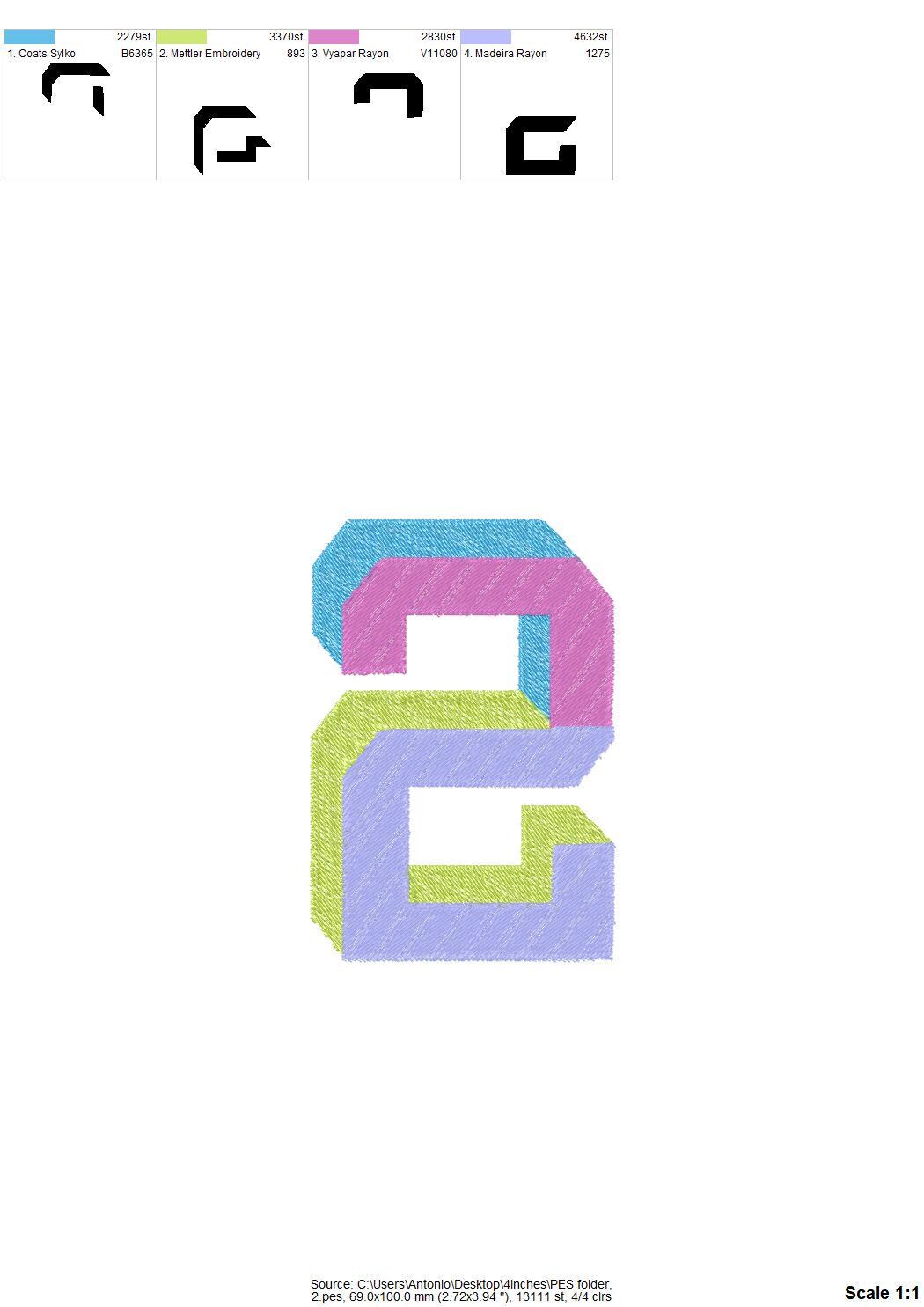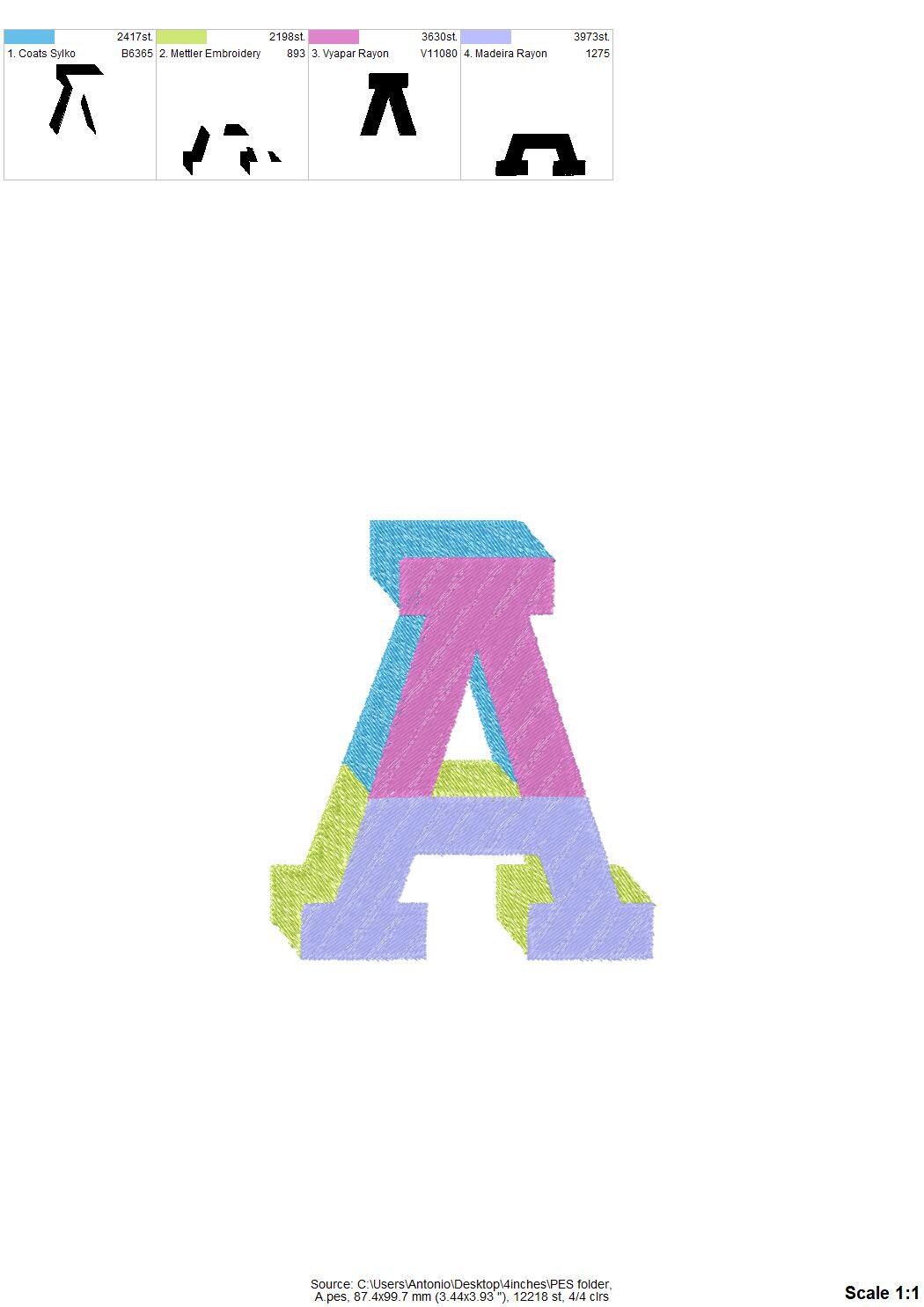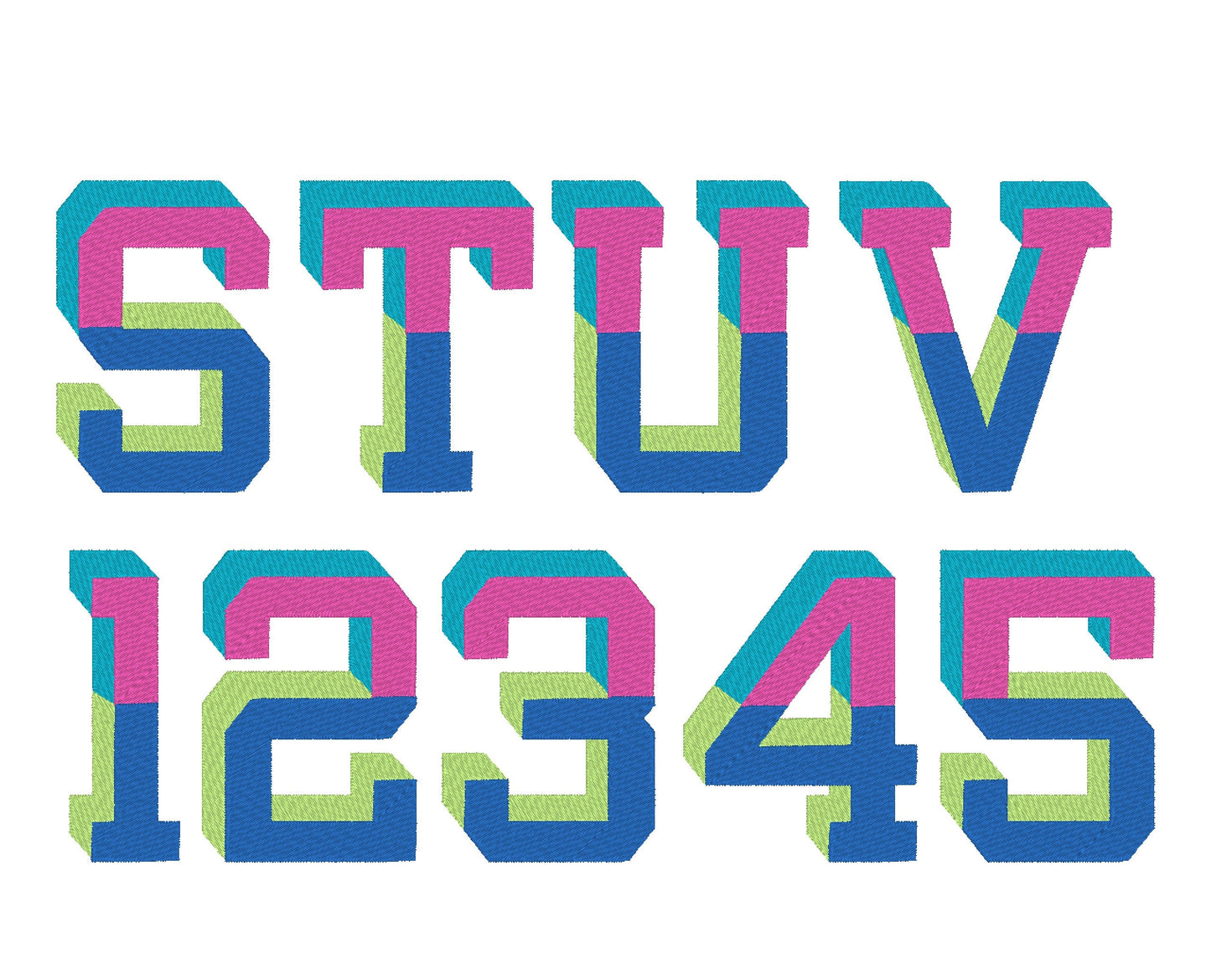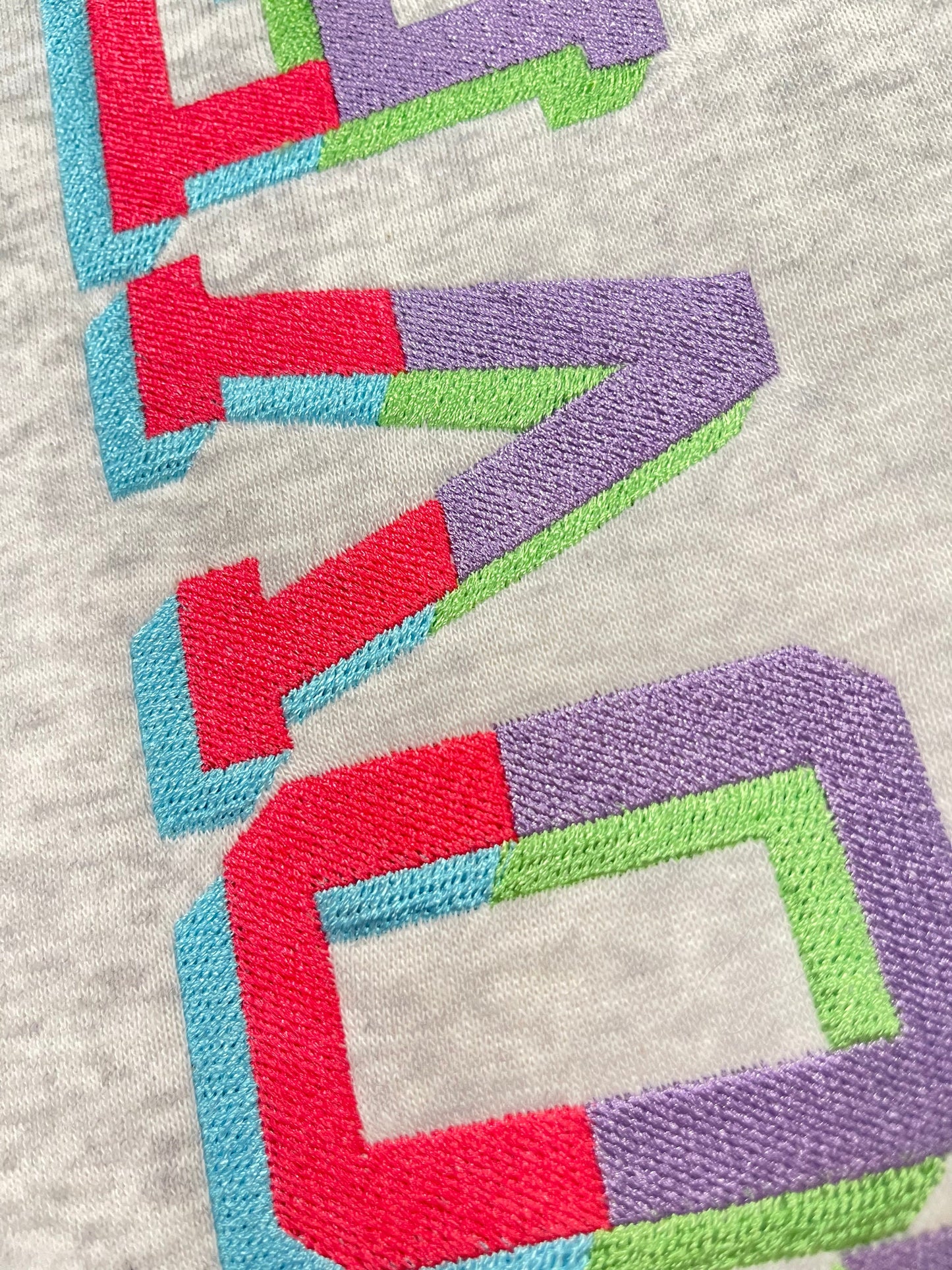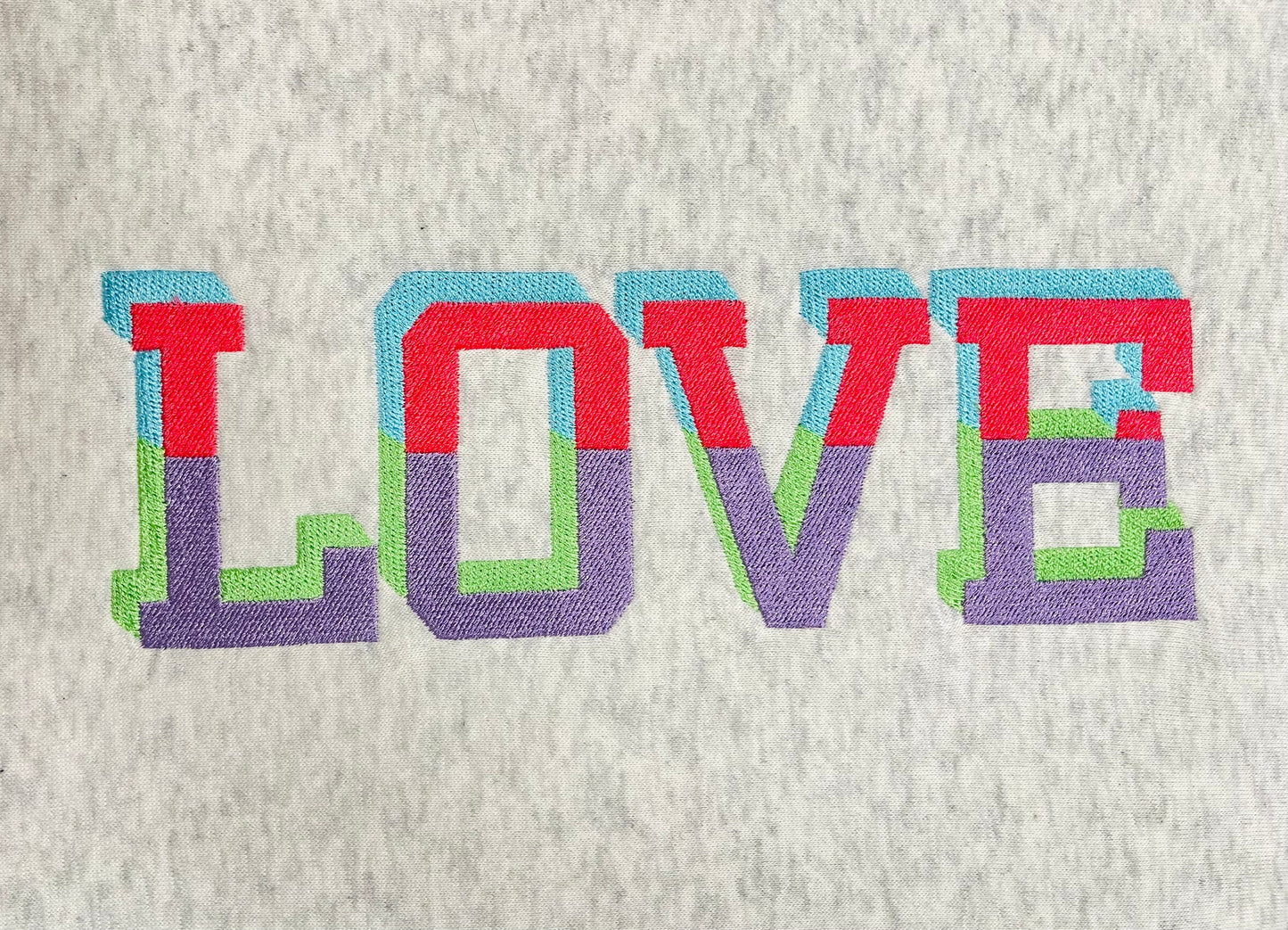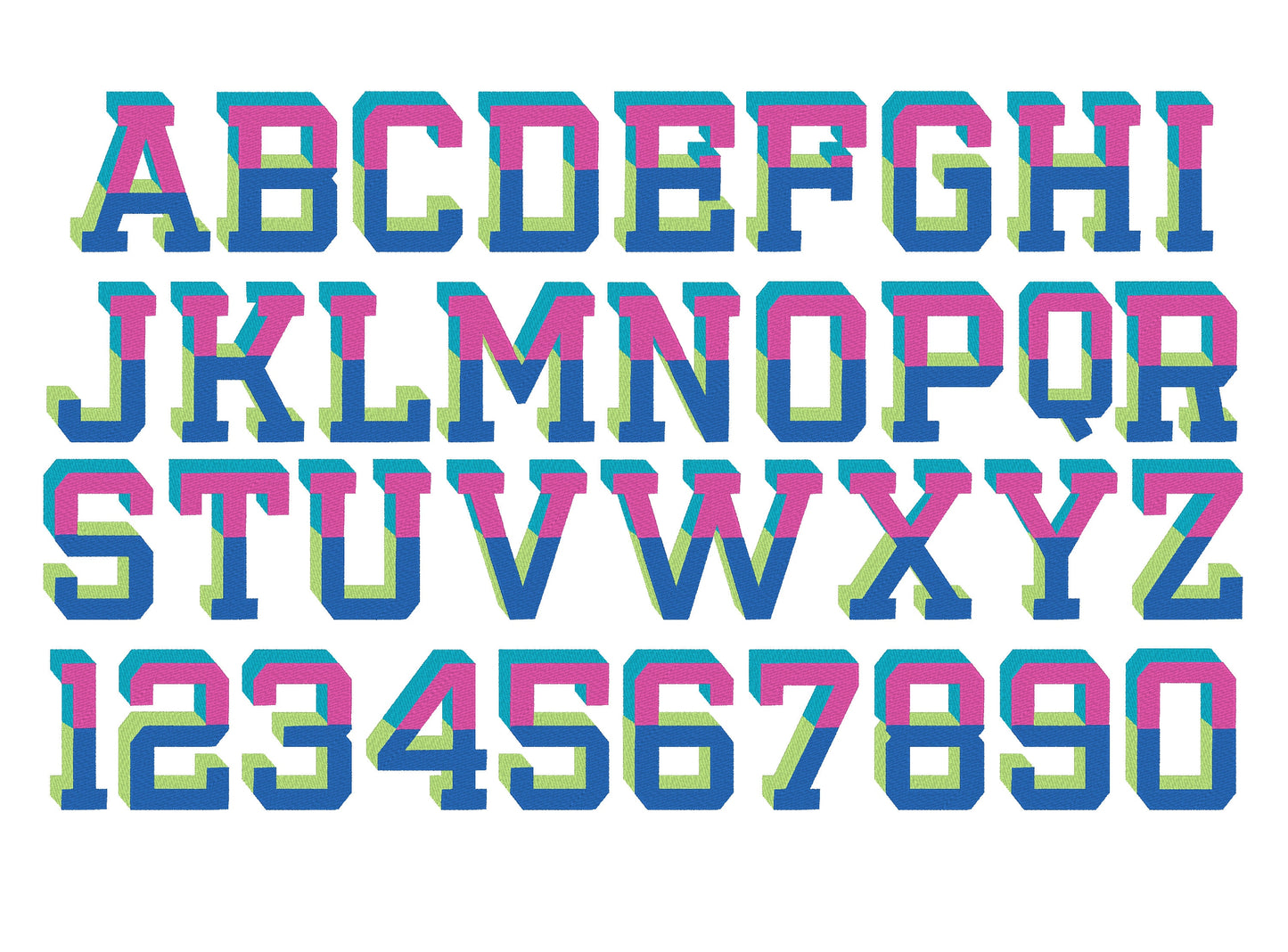
Or click to open the linkA varsity collegiate split block font in fill stitch with four colors, for bold team names and numbers on shirts, hoodies and bags.
Uppercase A to Z and numbers 0 to 9 in six sizes: 1.5, 2, 2.5, 3, 4 and 5.7 inches.